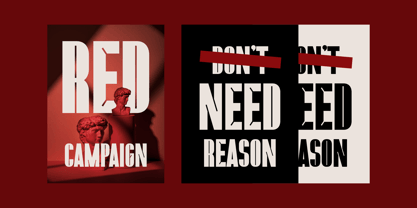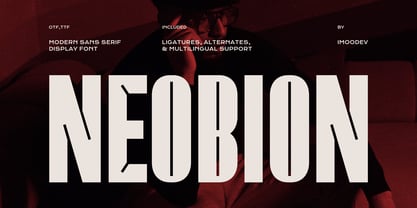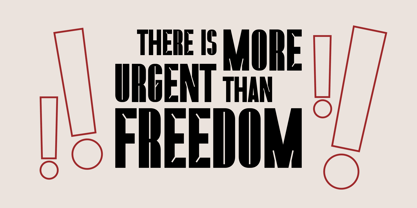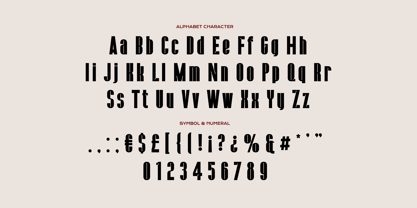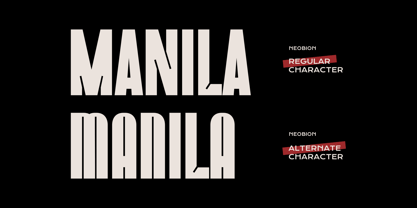
Neobion
by Imoodev
The Neobion Font Family was designed by Aulia Savira Putri and published by Imoodev. Neobion contains 1 styles. More about this family
Neobion is a bold, condensed sans serif designed to command attention. With its geometry and sharp, aggressive terminals, it blends industrial strength with a futuristic, cinematic aesthetic. It’s a versatile powerhouse for designers who need a typeface that speaks with authority and edge. One of the standout features of Neobion is its Alternate Characters. You can instantly shift the mood of your design from a sharp, aggressive look to a more structured, architectural feel. Whether you are working on a gritty streetwear brand, a poster, or a editorial layout, Neobion provides the modular flexibility to make your typography stand out.
Designers: Aulia Savira Putri
Foundry: Imoodev